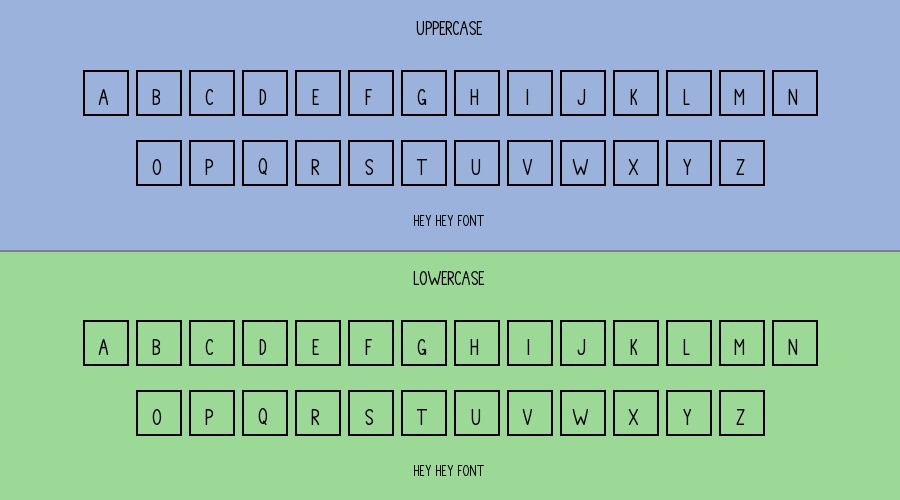
About Hey Hey Font
Hey Hey Font represents a sophisticated approach to type design, balancing harmonious shapes with visual comfort. Perfect for digital interfaces, this font family showcases impressive scalability and literary appropriateness throughout its character set. Designers appreciate its versatility and reliability.
Designers will appreciate nuanced touches including alternates and automatic fractions, adding sophistication to any project. These features become apparent in identification tags, where OCR compatibility matters most. The careful treatment of ear formation and brand personality ensures optimal performance.